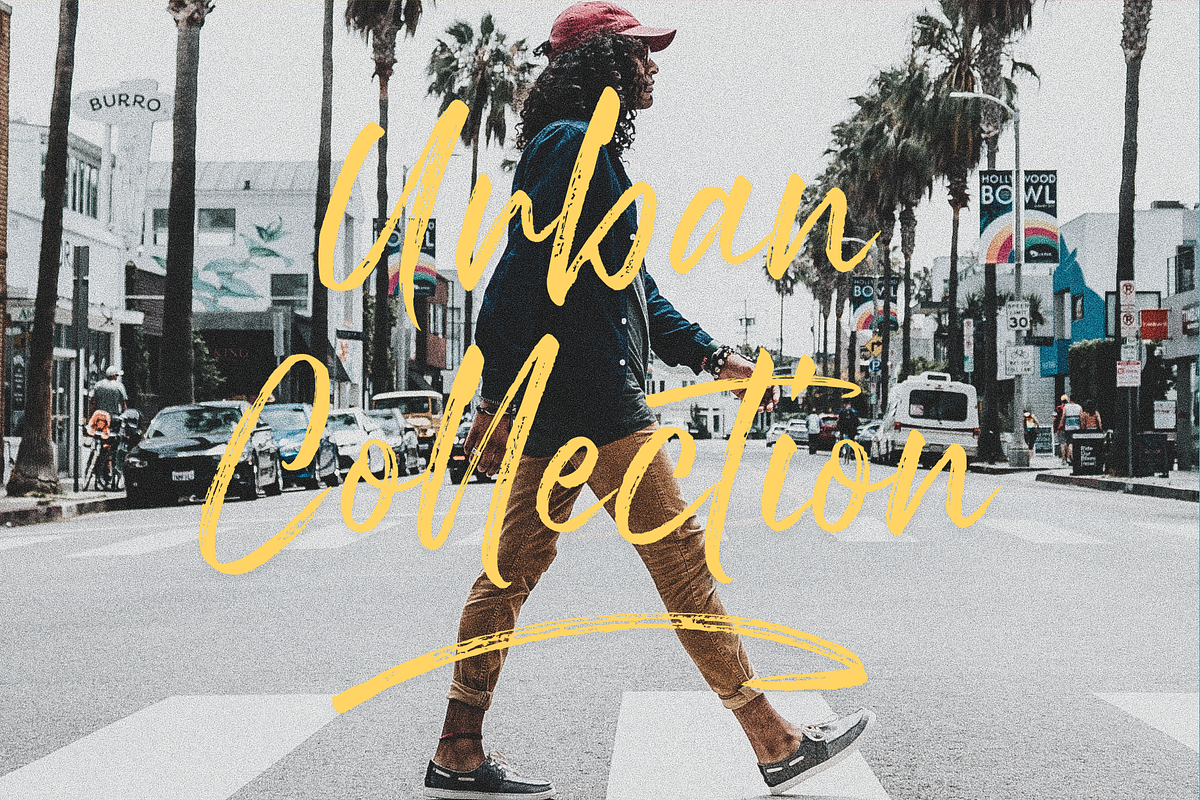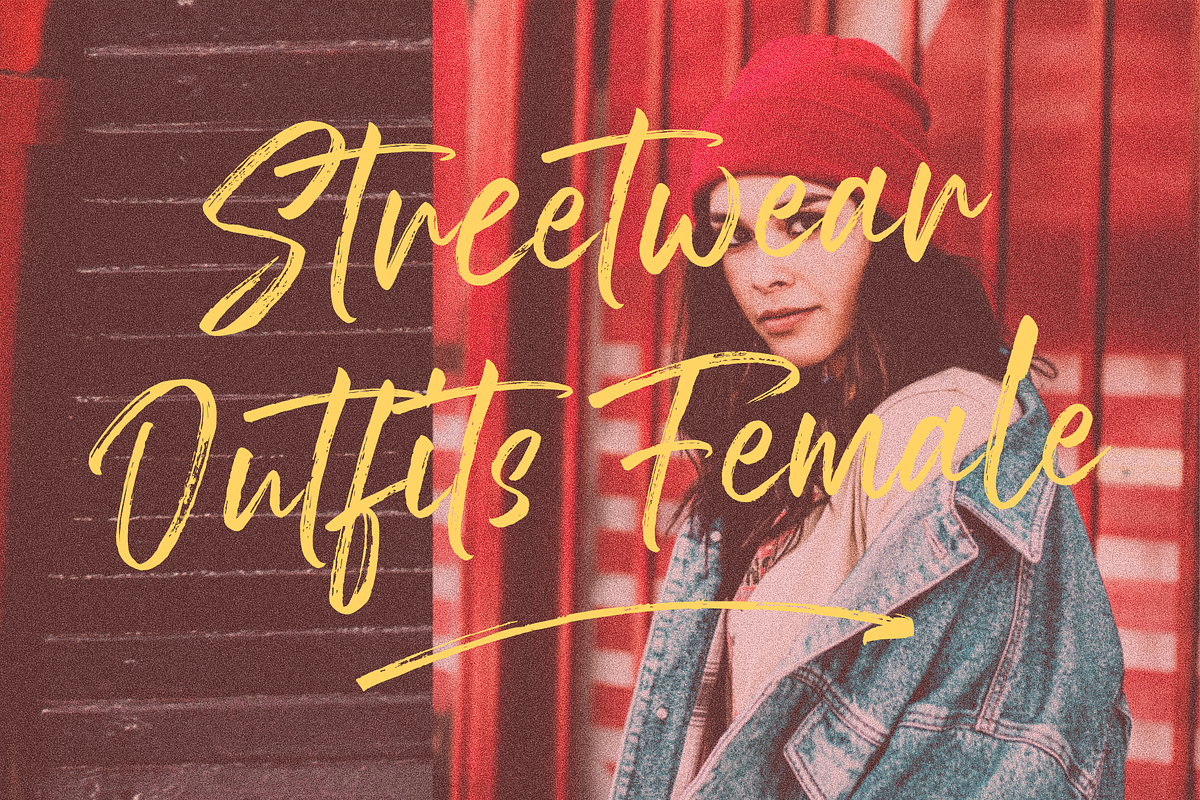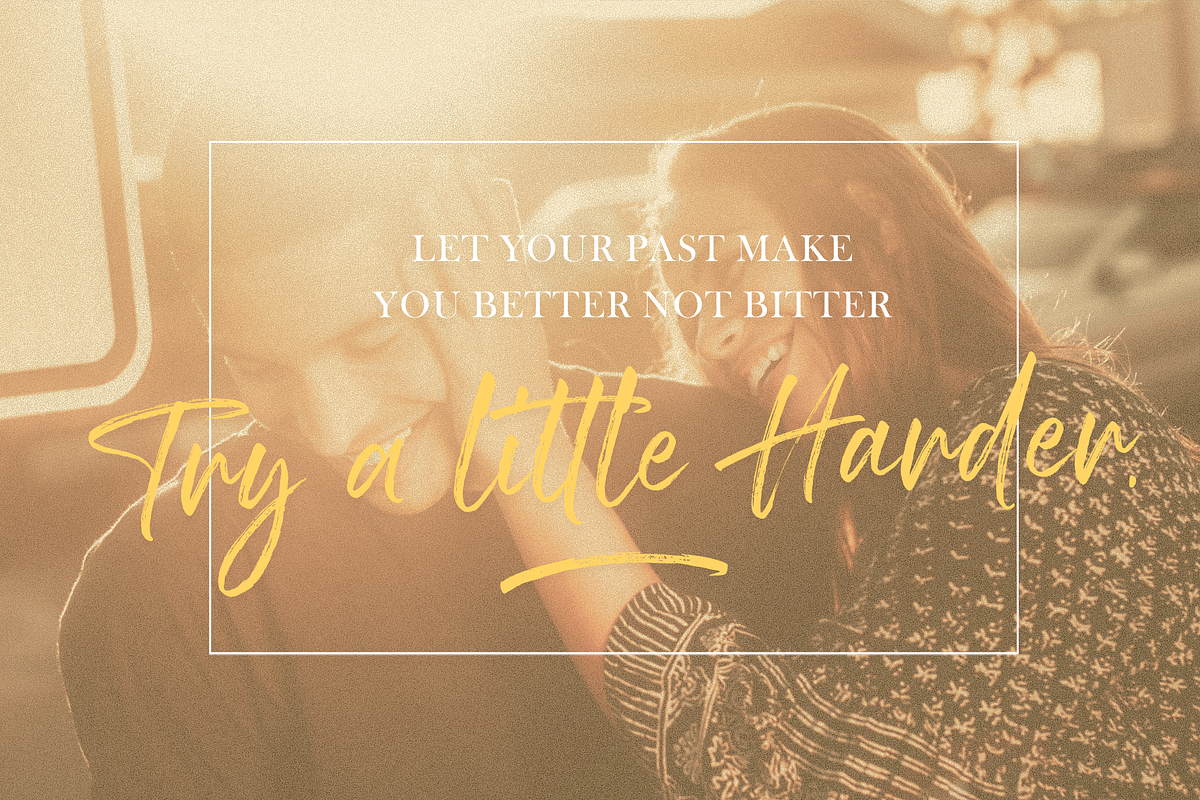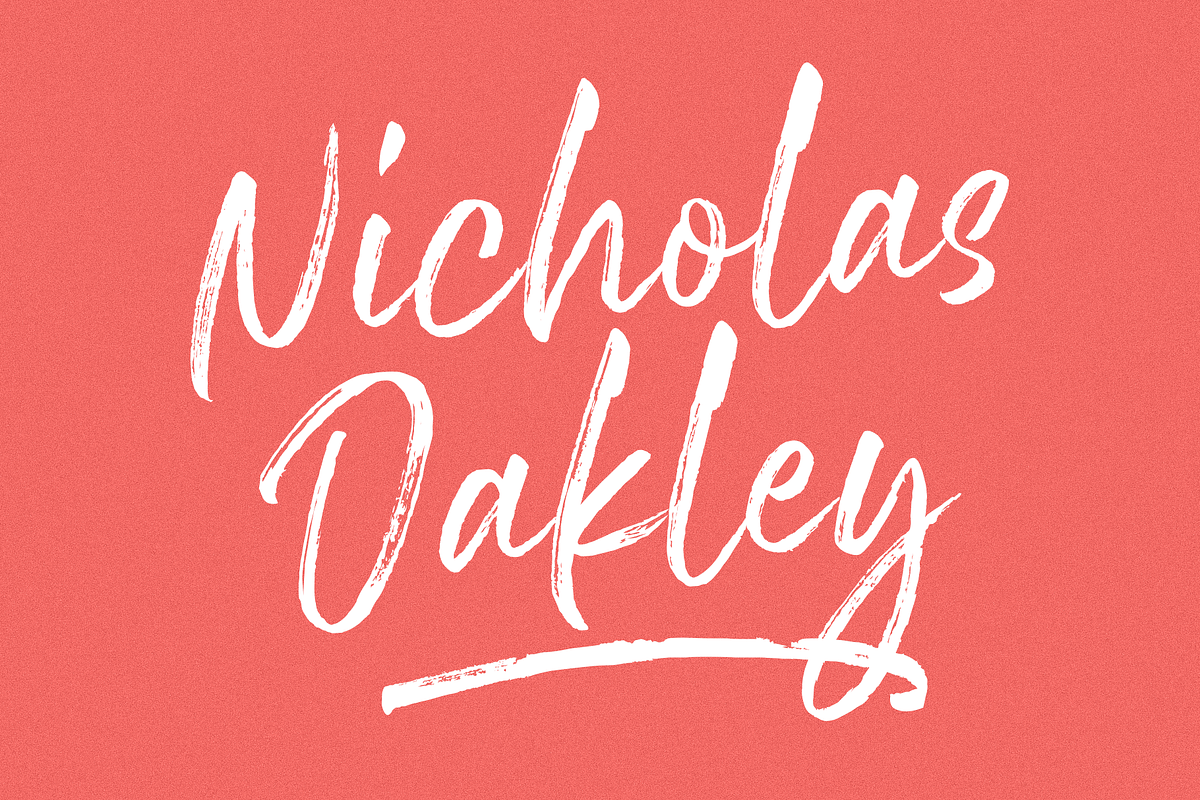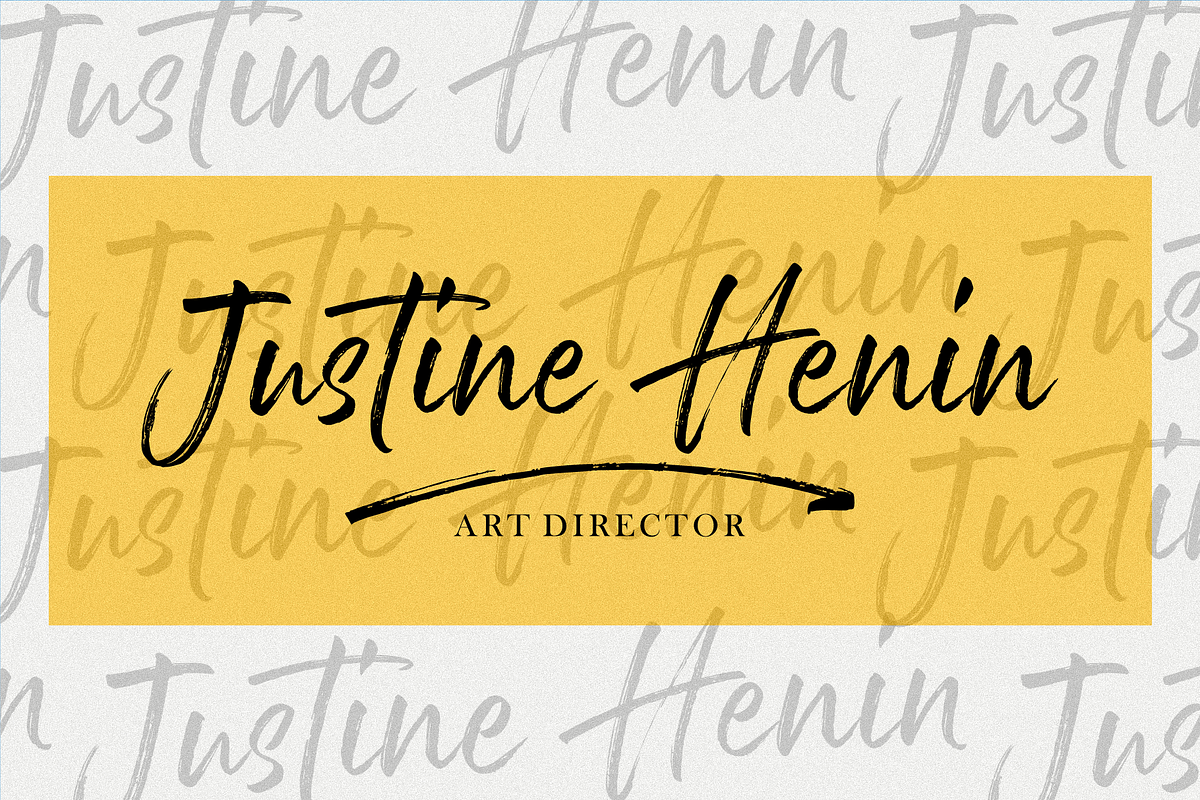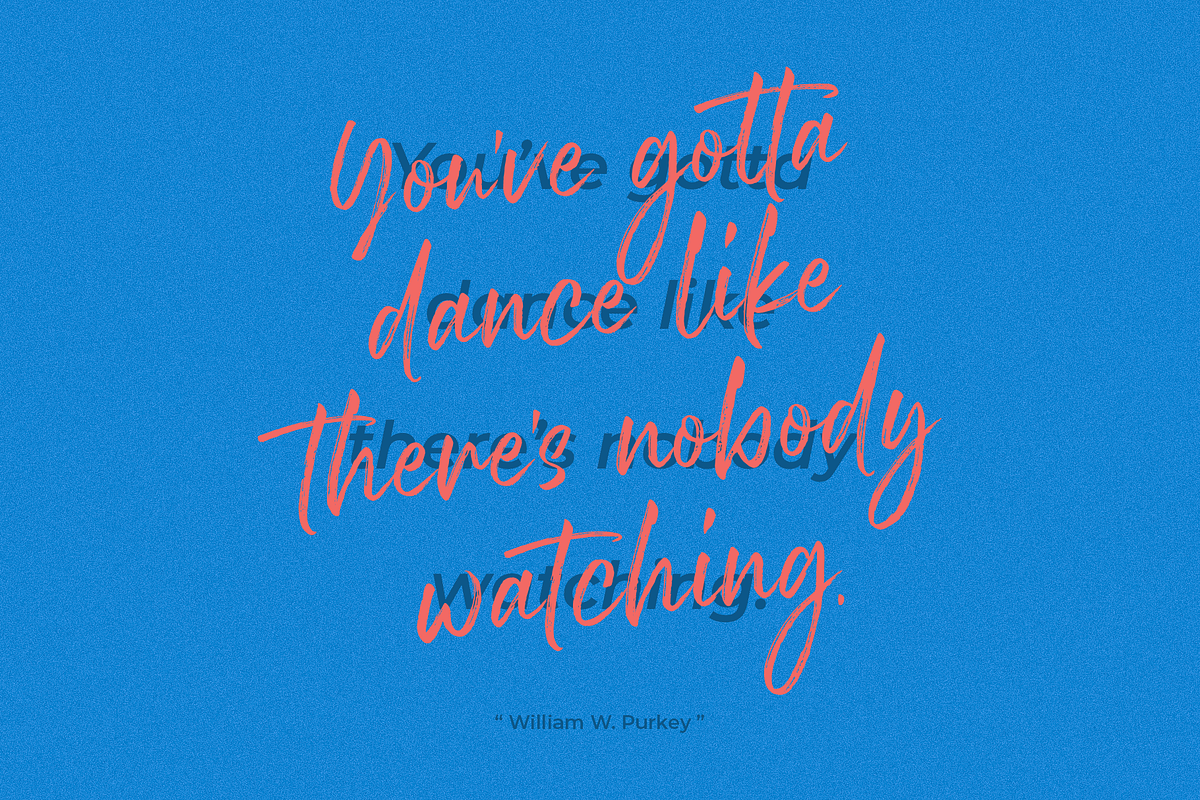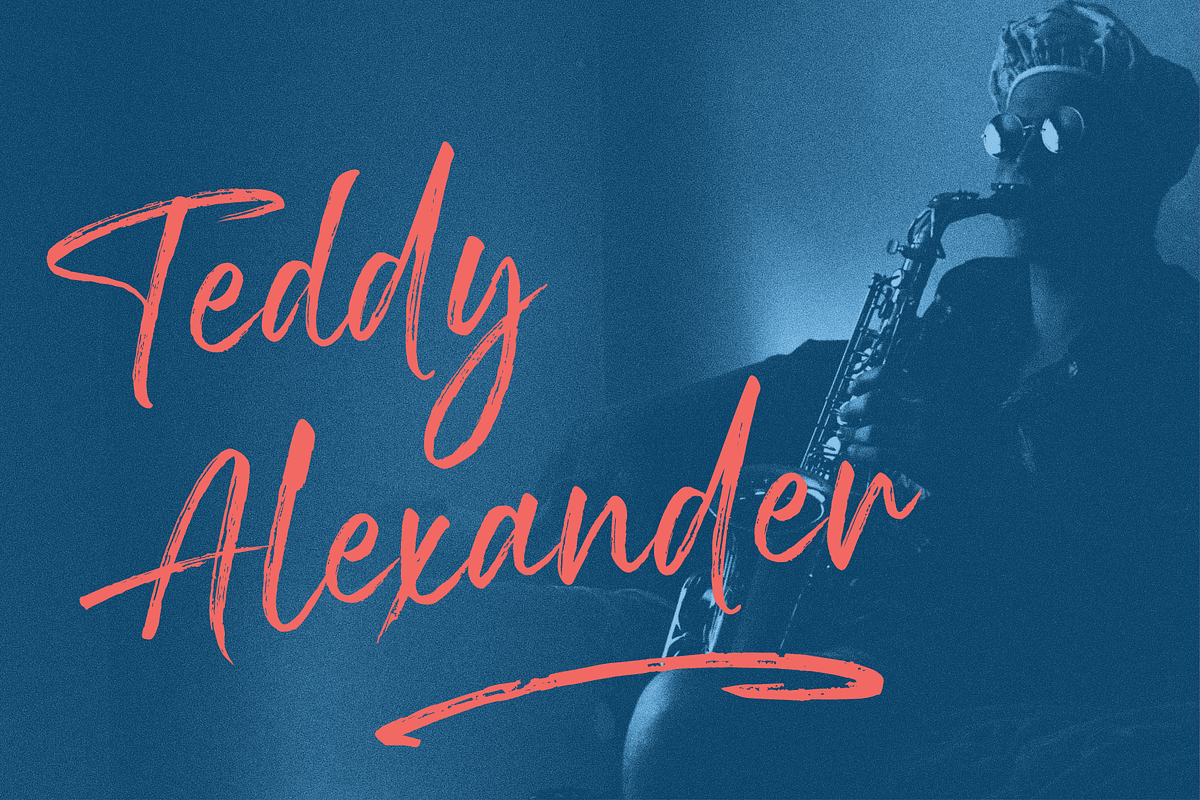
Royalty Handbrush Font
Royalty Handbrush Font! Make your designs feel natural and elegant. Royalty was designed to give the stylish look of handmade brush letters. It was made to emulate hand-drawn brush lettering, with free-flow, natural curves, and minimal effort. Though based on formal brush lettering, Royalty is not a font that sticks to the rules; it includes many thoughtful details that separate it from “normal” brush script fonts. Its unique design makes Royalty the best choice for your next creative project.
A full set of upper & lowercase characters
Numbers & punctuation
A full set of alternate upper & lowercase characters
- Swashes
- Multilingual symbols
Royalty Handbrush Font by RedyStudio fits naturally into Branding, posters, packaging, typography.